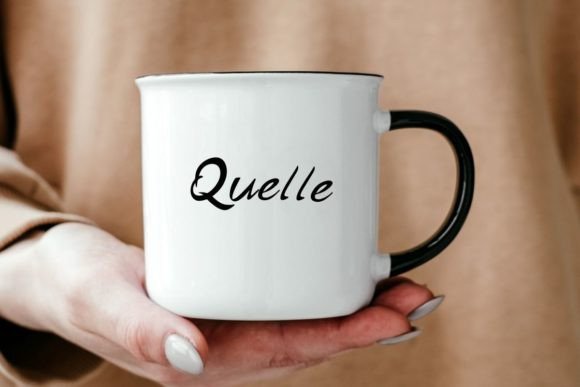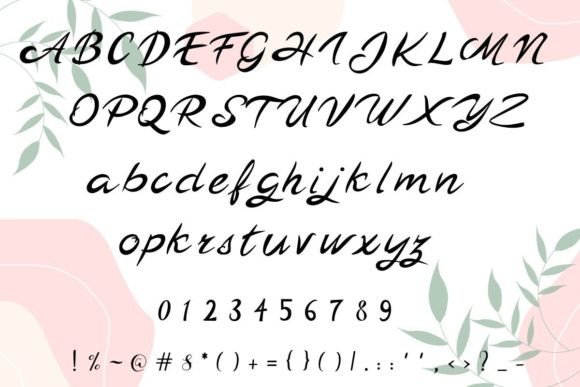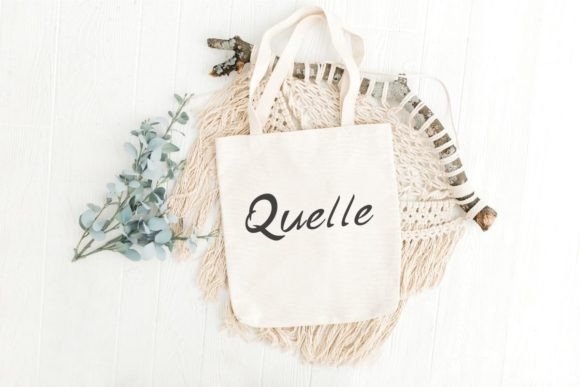
Introduction to Quelle Font
Quelle is a cute and stylish script font, designed to add a touch of elegance to any project.
With its graceful and fluid letterforms, this font exudes a sense of beauty and refinement that is perfect for branding, invitations, and editorial design .
Why Choose Quelle Font?